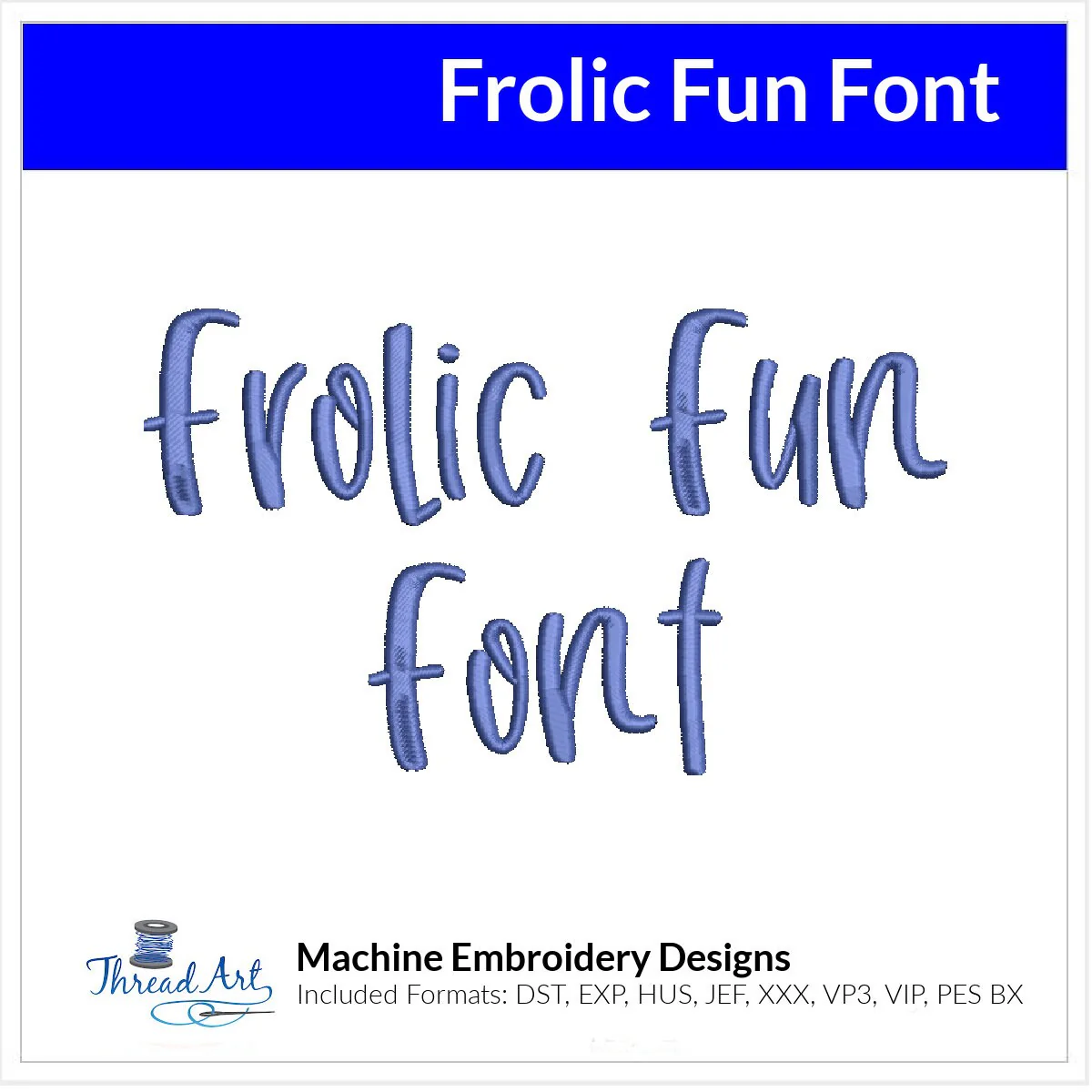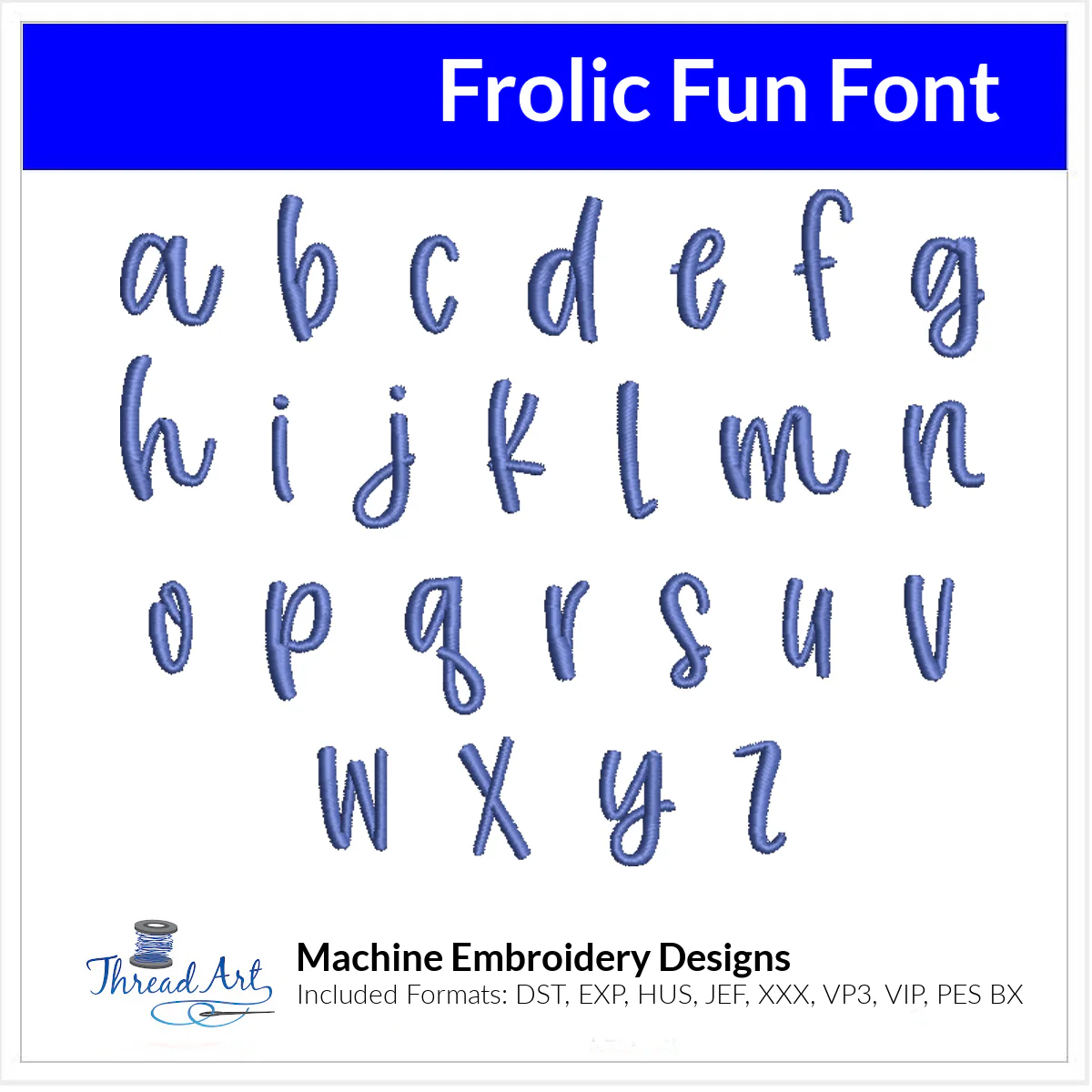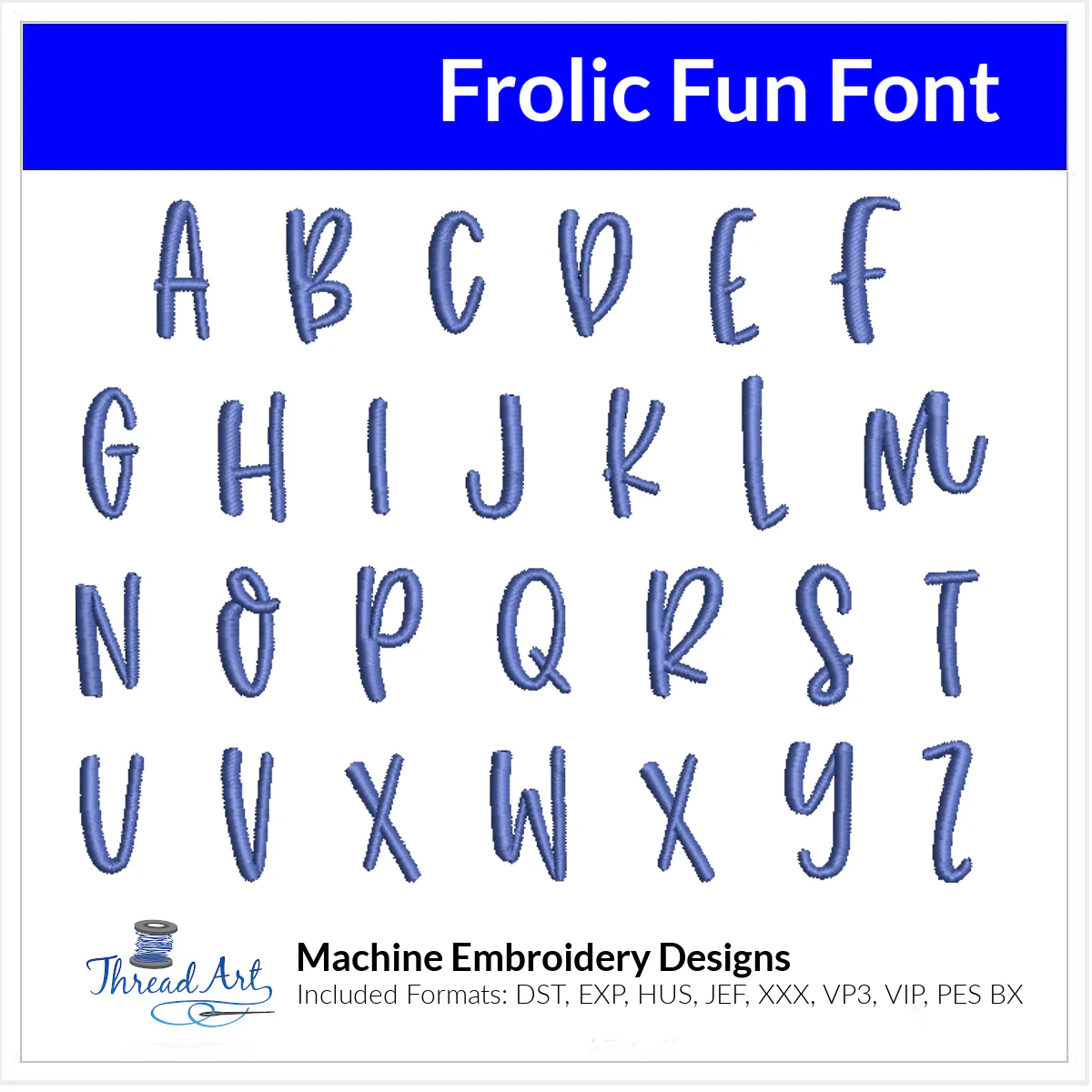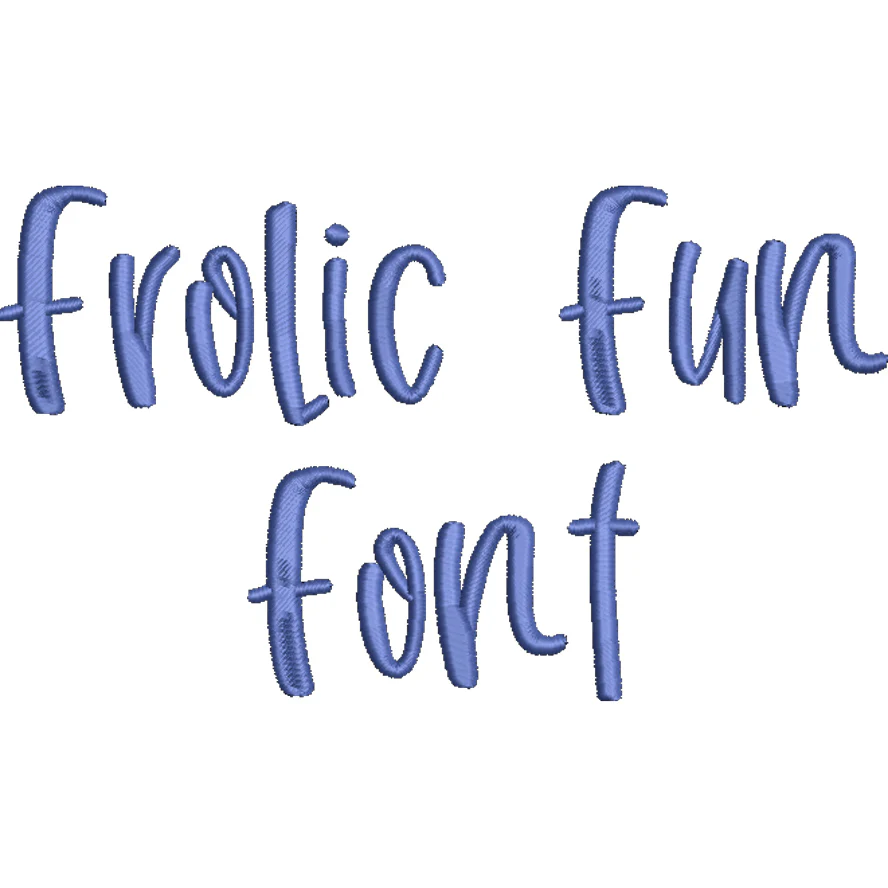
Frolic Fun Font Machine Embroidery Design Set - Whimsical Alphabet Letters BX Font - Download 9 Formats and 3 Sizes - 1", 1.5", 2"
Frolic Font Design -- Machine embroidery font design set with different design sizes included. Letters are 1", 1.5", 2", 2.5" and 3" tall and includes both uppercase and lowercase in popular formats: DST, EXP, HUS, JEF, PES, XXX, VIP, VP3, BX. Convenient for those with multiple machines. Designs will be available for instant download. Choose physical USB stick to have designs sent via mail on a usb stick.Ā Satin stitch for 1", 1.5" and fills stitch for 2" and up.